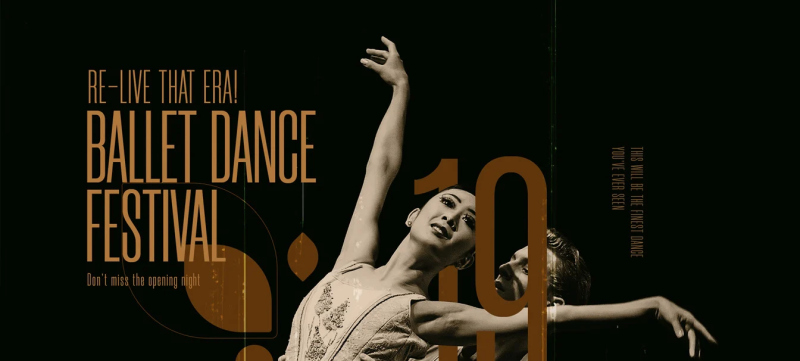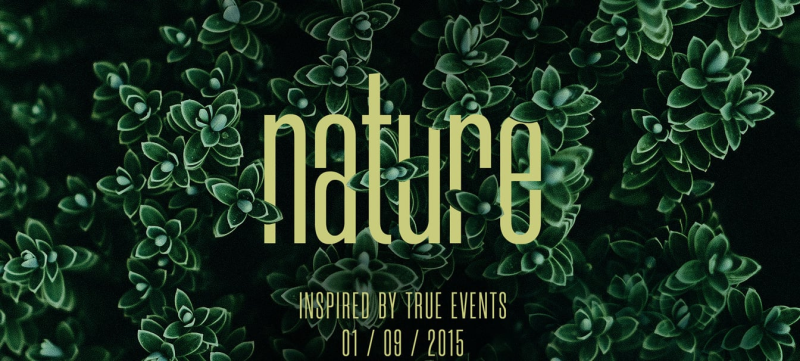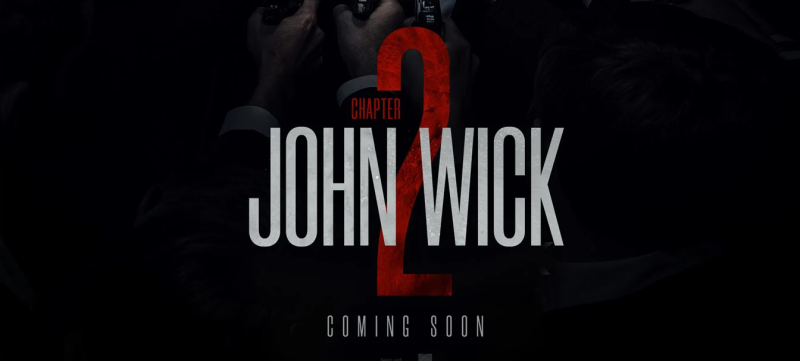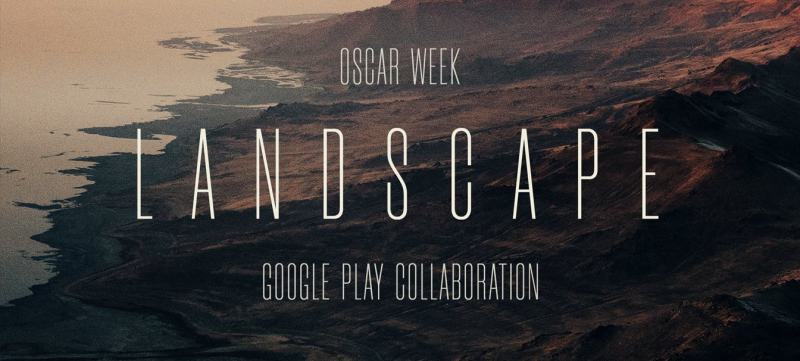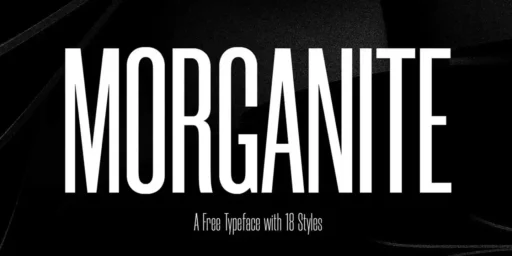
Morganite Font
Morganite is a modern sans-serif font with a smooth mix of grace and adaptability, making it an elegant but accessible solution for countless designer works. Crafted by Rajesh Rajput, the first Morganite was released in 2017 and is now popular among users due to its contemporary style and outstanding readability.
The main attraction of the typeface is its perfect combination of geometric figures and gentle, rounded edges. This unusual combination gives Morganite a pronounced, sleek, and welcoming character. Every letterform is sculpted with accuracy, so it has neat lines and gentle twists that improve legibility and add a touch of elegance.
Here is the content with improved readability: Morganite is presented in numerous weights, styles, and letter forms. The typeface can appear to be either soft and smooth or bold and strong. This makes Morganite versatile. It can be used anywhere for brands, magazines, websites, and others.
Morganite has excellent readability, mainly when it is applied in small sizes. The characters are of exceptional height and accurately positioned. This makes sure the font is distinct in various media and settings. But used for headings, body, or labels, Morganite retains its legibility and visual force.
To sum up, Morganite is a modern typeface that combines elegance, adaptability, and usability. Having a contemporary aesthetic, excellent legibility, and an extensive character set, Morganite is still a popular option for those in search of a statement typeface that does so with an element of class.